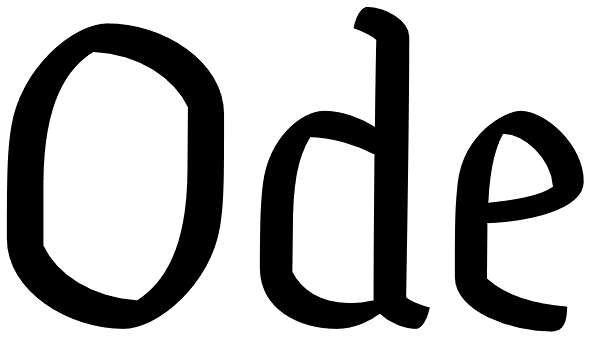
Ode
Ode is a vibrant family in five weights with a strong personality. And it makes me think of food — something that I actually do quite a lot. No Nouvelle Cuisine here but rustic fare, dishes served in bowls and plates with a thick rim, lots of herbs...